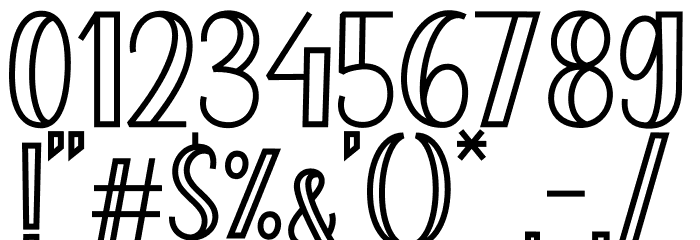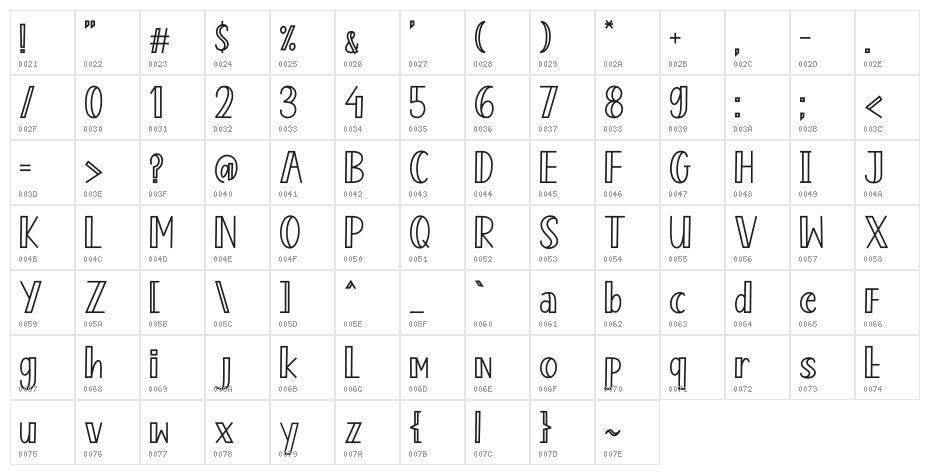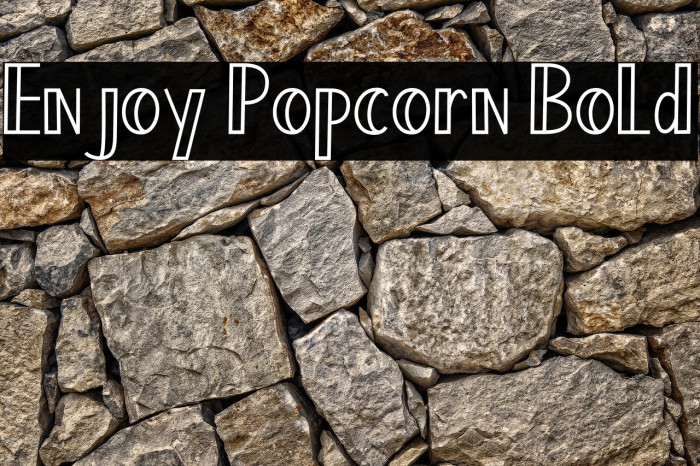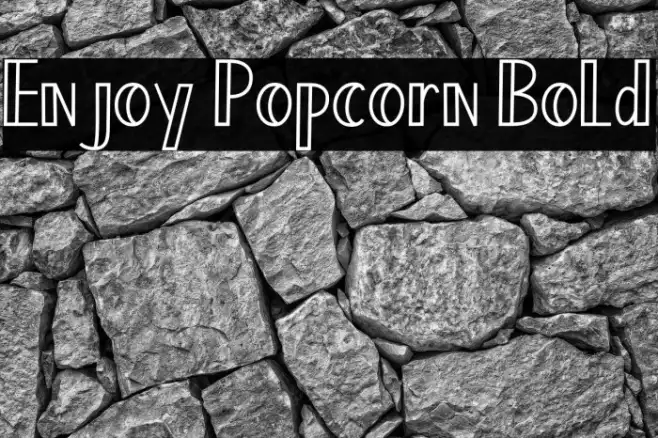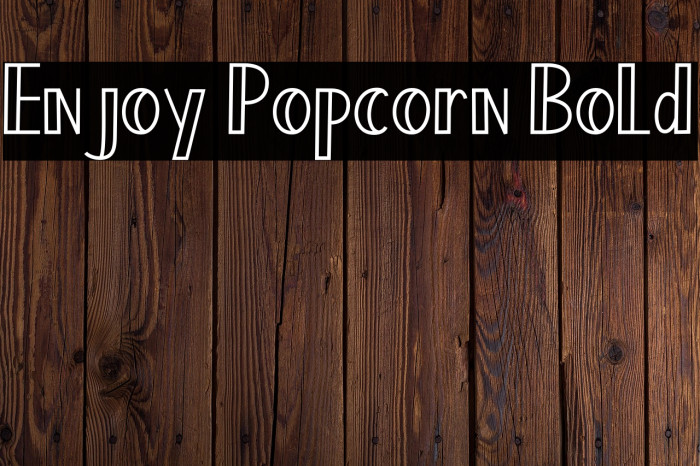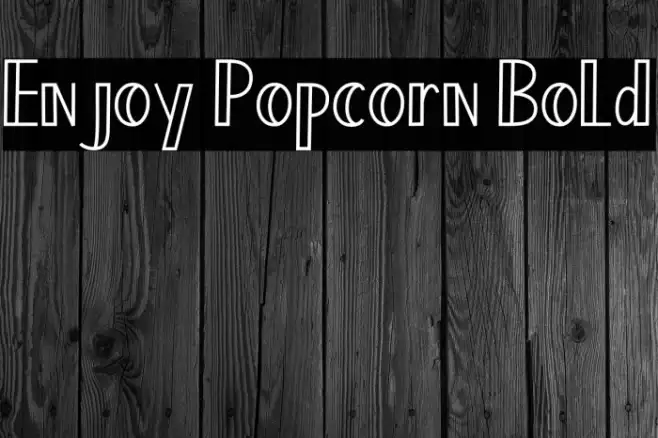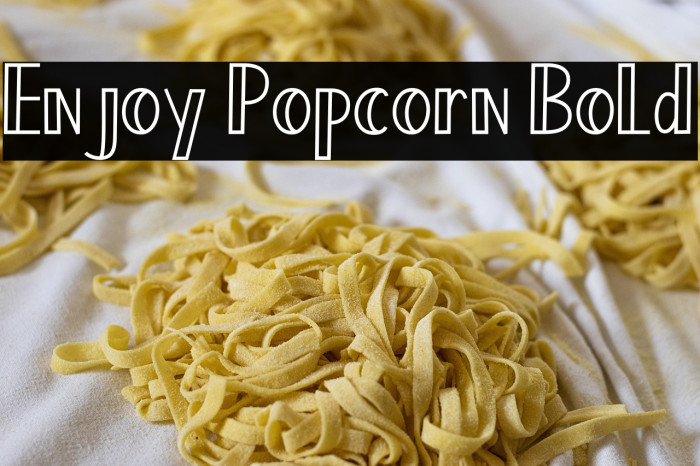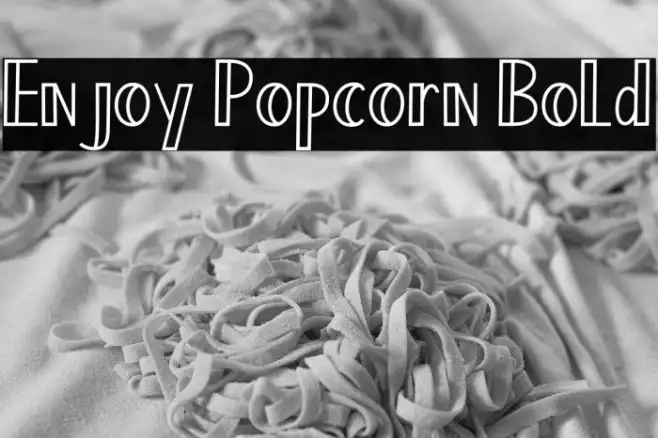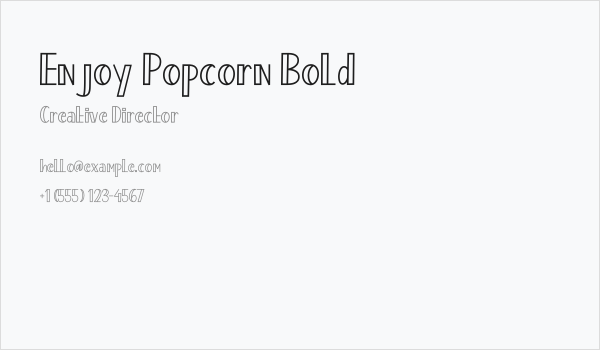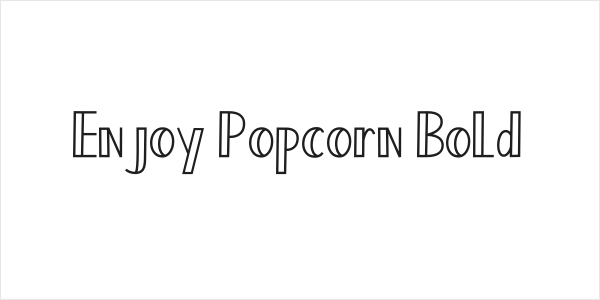
Enjoy Popcorn Bold Font
Enjoy Popcorn Bold Description
This font features a playful and bold design with a unique, hand-drawn appearance. The uppercase letters are tall and narrow, with a slight slant that adds a dynamic feel. The lowercase letters maintain a consistent style, with rounded edges and a whimsical flair. Numbers and special characters follow the same playful theme, making them stand out with their bold strokes and distinctive shapes. The overall look is reminiscent of a fun, casual atmosphere, perfect for projects that require a touch of personality and charm.
| Proposed Projects | Ideal for children's books, playful branding, posters, and party invitations. |